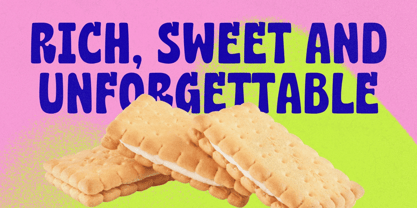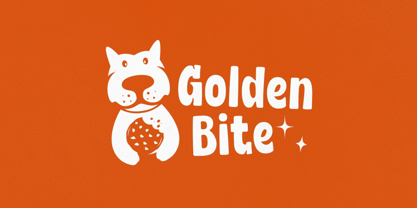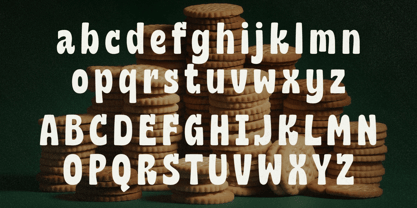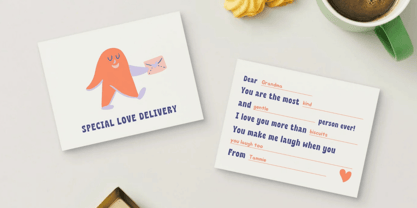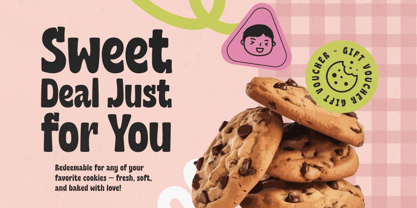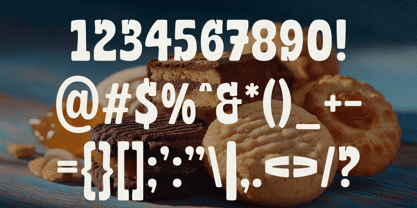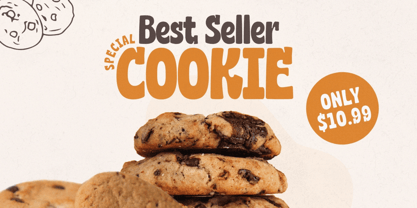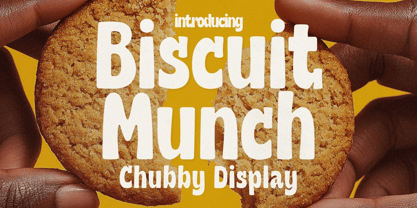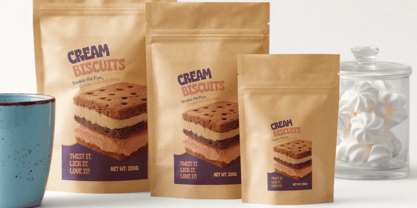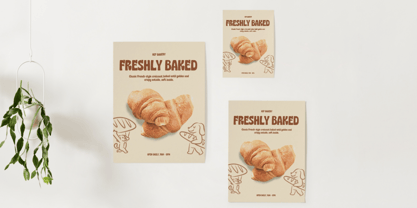
Biscuit Munch
Introducing Biscuit Munch, a super fun and delightfully chubby display font packed with warmth, personality, and irresistible snack-time charm. With its bubbly rounded shapes, playful curves, and wiggly hand-drawn rhythm, this typeface looks like it leaped straight out of a cozy café menu, adorable bakery sign, or cheerful snack package.
Every letter in Biscuit Munch radiates friendliness and comfort, creating a soft, welcoming feel that instantly makes designs more approachable, playful, and full of life. Its bold, easy-to-read forms help headlines stand out while maintaining a cute and lighthearted personality that feels handcrafted and authentic.
Perfect for café branding, bakery packaging, snack labels, children’s products, restaurant menus, stickers, posters, social media graphics, YouTube thumbnails, apparel, playful logos, and fun creative projects, Biscuit Munch delivers a charming visual style that feels sweet, cozy, and unforgettable.
Cute. Chunky. Wonderfully snackable.